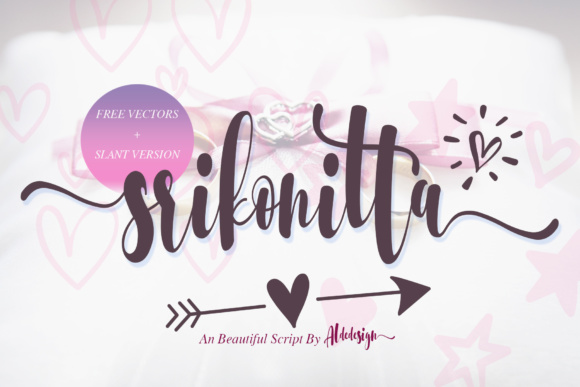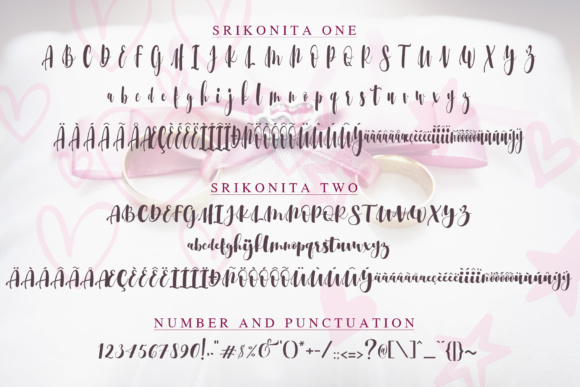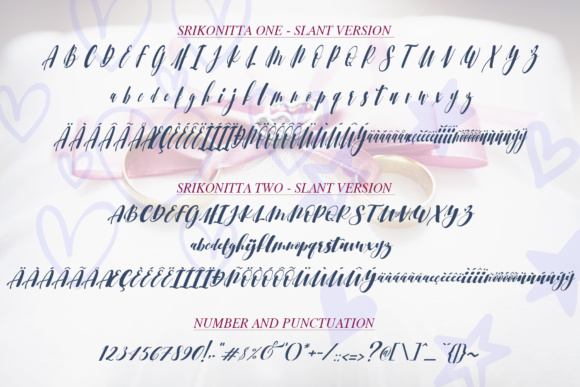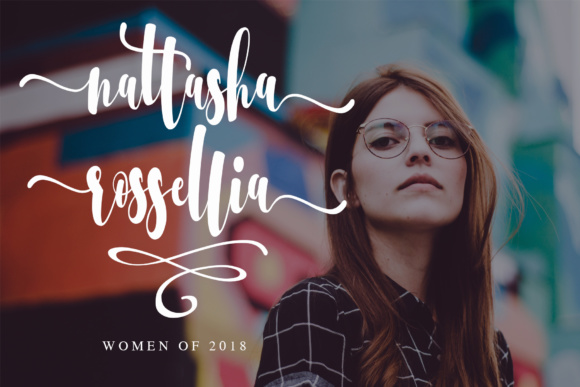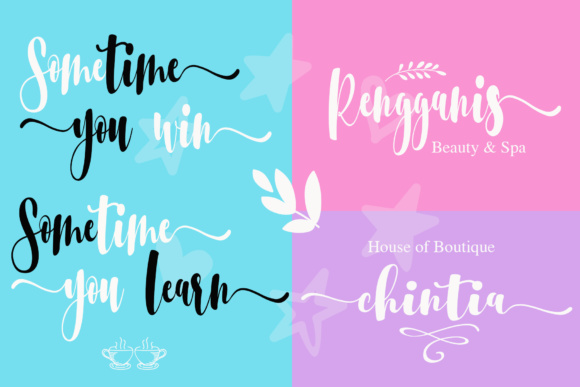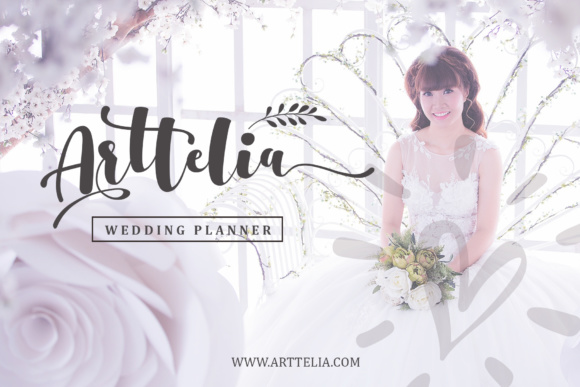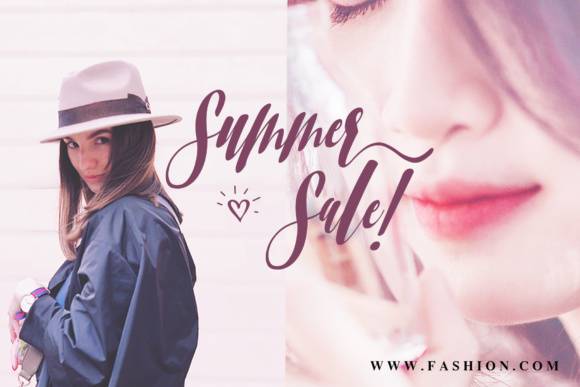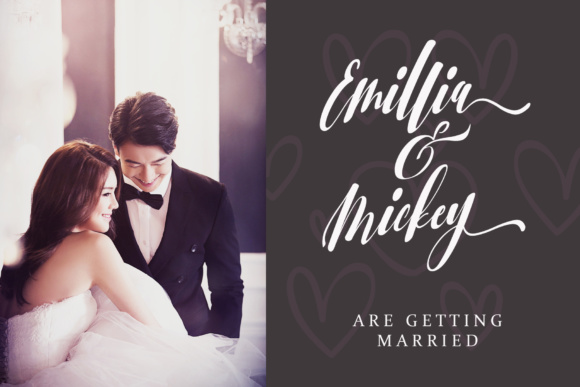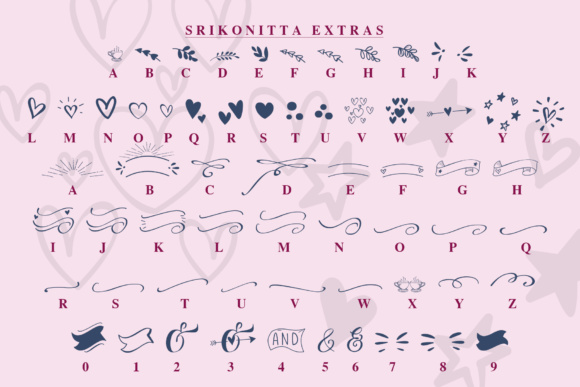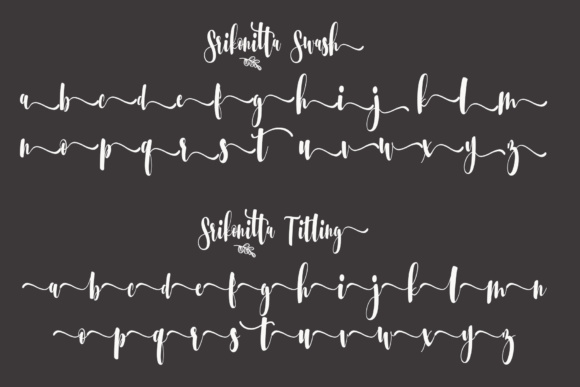
Srikonitta Font
About Srikonitta Font
Srikonitta is a beautiful, swashy calligraphy script that will exude happiness and love in every design! This font has an adorable quality to it, and works well in creating captivating and romantic designs.